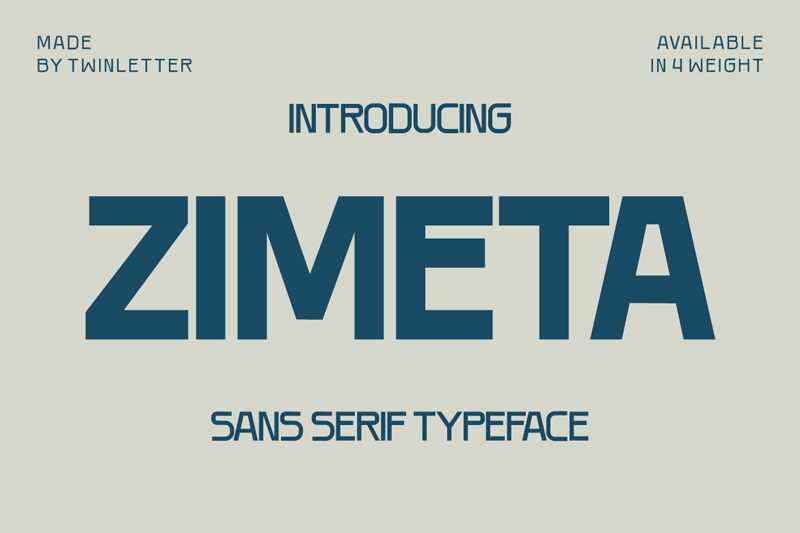
ZIMETA Thin is a delicate and chic sans-serif font that will elevate any design project. Designed by Murozakul Akhsan, this semi-light typeface exudes sophistication and modernity. Its clean lines and minimalistic design make it perfect for fashion editorial pieces, elegant invitations, or modern websites. ZIMETA Thin's versatility allows it to be used in a variety of projects, from branding and packaging to social media graphics and advertising campaigns. Its crisp edges and legibility also make it a great choice for body text in printed materials such as books or magazines. Bring your designs to life with ZIMETA Thin – the perfect choice for those seeking a refined aesthetic.